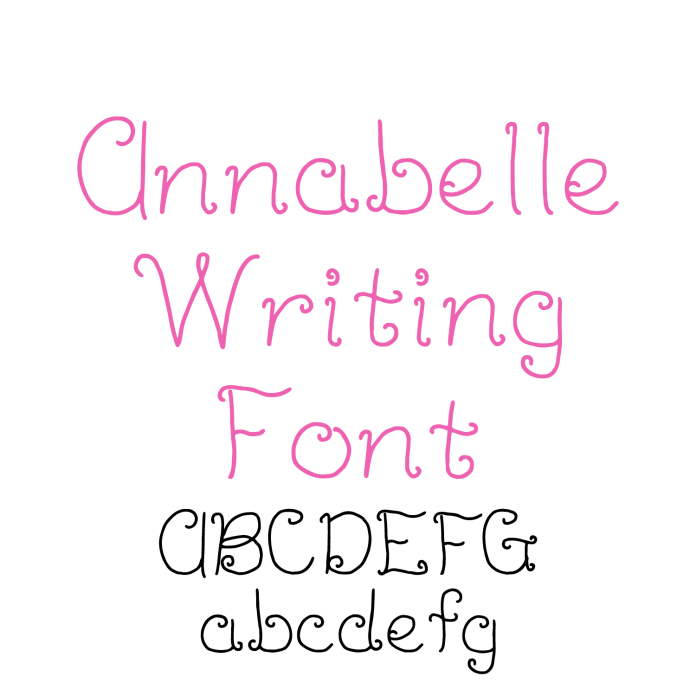
Bring charm and elegance to your projects with the Annabelle Writing Font — a delicate handwritten script with graceful swirls and soft curves. This whimsical font is perfect for wedding invitations, greeting cards, thank-you notes, personalized labels, and thoughtful gifts. Its smooth, simple lines make it easy to use with writing tools or cutting machines for sketching, engraving, or foil accents. Whether you're designing paper crafts, planner pages, or handmade stationery, Annabelle adds a graceful, flowing touch to every word. Add this stylish, swirly font to your collection and make every project feel beautifully personal and creative.